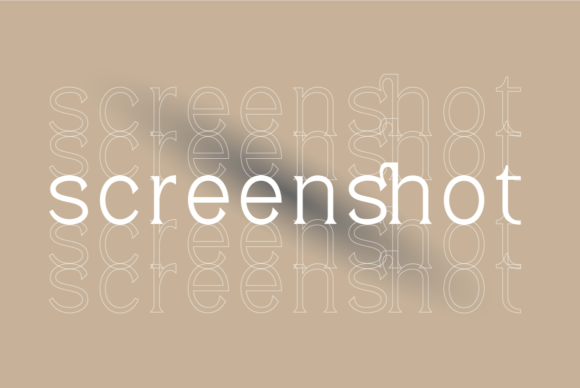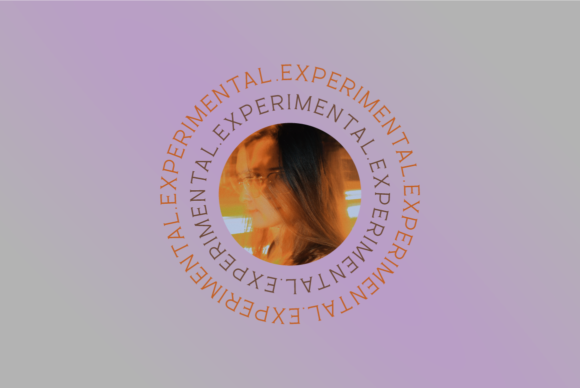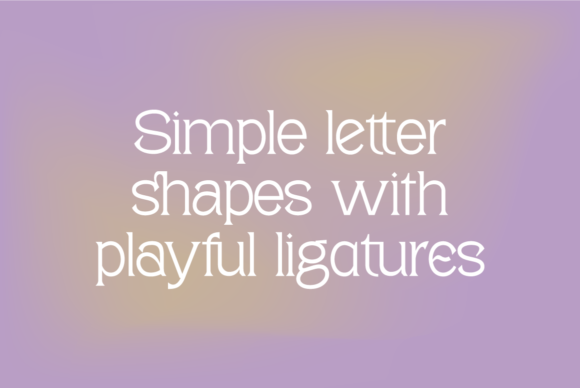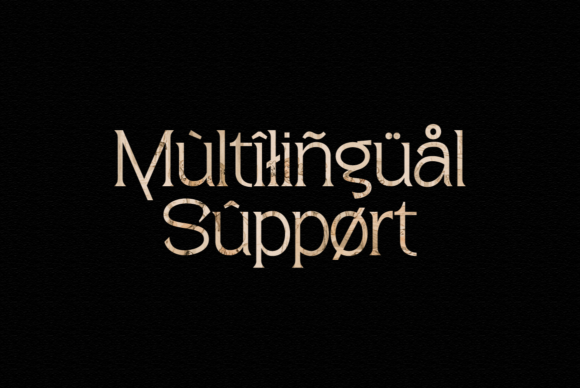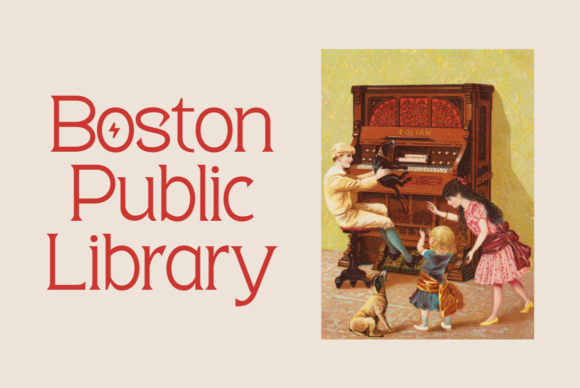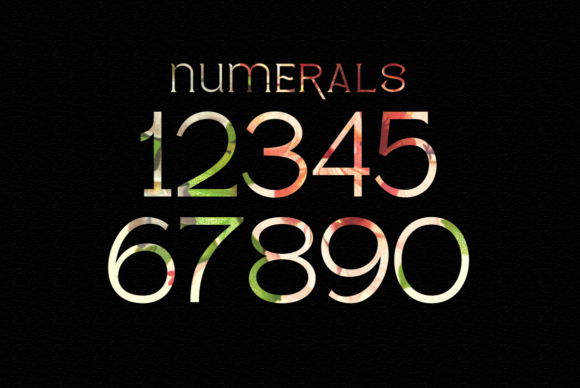
Introduction to Pagers Font
Have you ever been working on a creative project and stumbled upon the perfect font, only to find that it elevates your design to a whole new level? For designers, that moment is pure magic. It’s the moment when all the elements come together, and your vision starts to take shape. This is exactly what the Pagers Font can do for your next project.
As a high-quality design resource, the Pagers Font is a stylish serif font that’s perfect for creating stunning logos, quotes, and blog posts. With its retro charm and stylish flair, this font is a valuable addition to any designer’s toolkit. And the best part? It’s free to download, making it an accessible resource for designers of all levels.
Pagers Font
- High-quality design resource suitable for creative projects.
- Unique characteristic: a distinctive, modern aesthetic that adds a touch of sophistication to any design.
- Perfect for designers looking for a versatile and stylish font for their creative projects.
Honest Review: Pagers Font
I recently had the chance to work with the Pagers Font, and I must say it’s a great addition to any design resource. This high-quality font is perfect for creative projects that require a unique touch.
What works well is the font’s clean design and transparent background, making it easy to pair with any background image or color. The font’s versatility is another highlight, suitable for a wide range of applications, from headings to body text.
- ✨ Clean and simple design that’s easy to read
One limitation is the font’s limited character set, which may not be suitable for projects that require a wide range of special characters or languages.
Overall, I’m impressed with the Pagers Font. It’s a great addition to any design resource and perfect for creative projects that require a unique touch. The free download is a major plus, making it accessible to designers of all levels.
Pagers Font
Pagers Font is a high-quality design resource perfect for creative projects. To get the most out of it, follow these steps:
Tips for Getting the Most Out of Pagers Font
To get the most out of Pagers Font, use it in conjunction with other design elements, such as images and graphics, to create a visually appealing design. Experiment with different font sizes, colors, and styles to achieve the desired look.
Pagers Font is commonly used in creative projects, such as brochures, flyers, and business cards. It’s also ideal for use in social media graphics, posters, and other marketing materials.